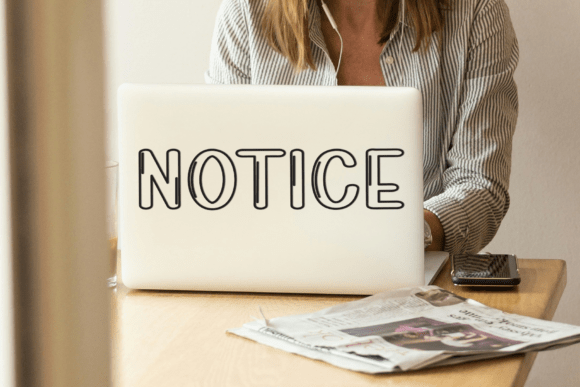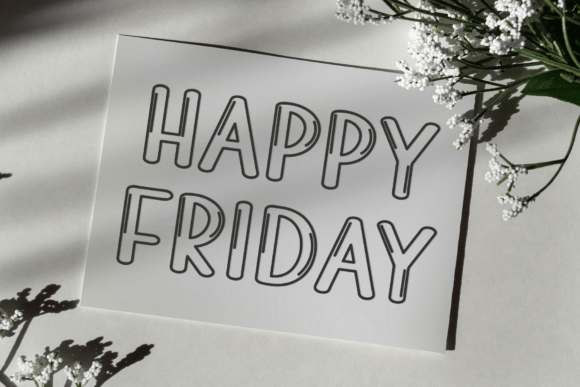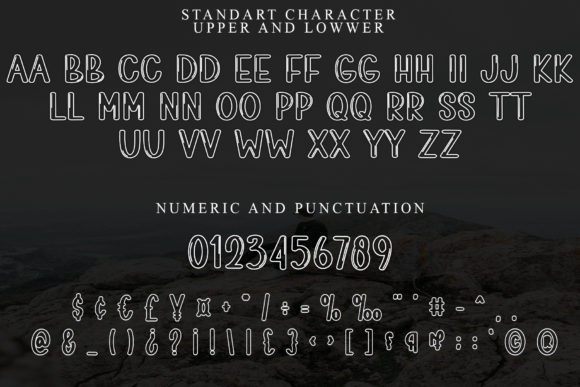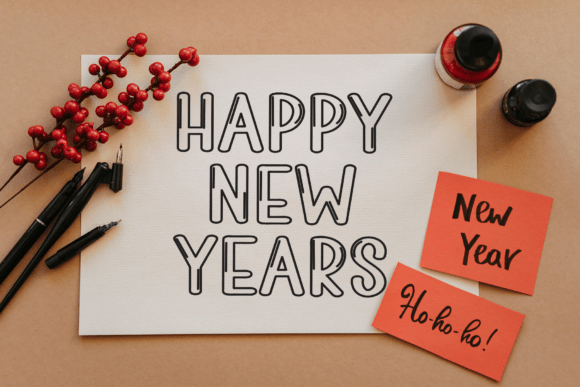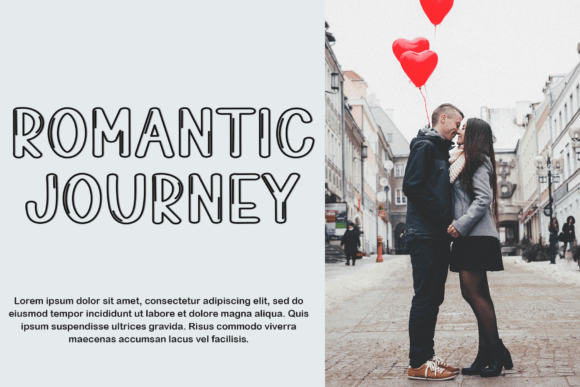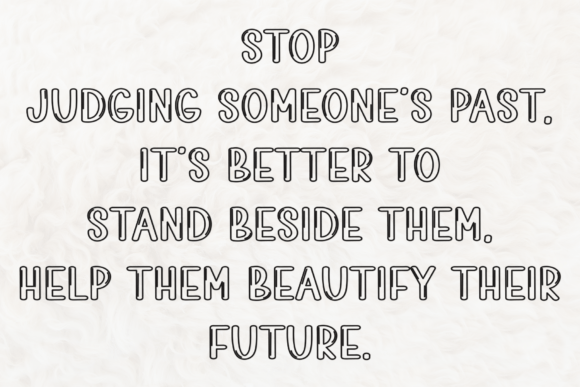
The Charm of Bubble Space Font: A Designer’s New Best Friend
I’ll never forget the time I was working on a project for a kids’ birthday party invitation. I had the design concept nailed, but something was missing – the perfect font. I scrolled through my font library, but nothing seemed quite right. That’s when I stumbled upon Bubble Space Font. Its playful, chunky strokes and friendly letterforms immediately caught my eye, and I knew I had found the one.
What I Love About Bubble Space Font ✨
- ✅ The bold character and warm, personal touch make it perfect for kids’ designs, social posts, greeting cards, or branding that needs personality and charm.
- ✅ The playful, chunky strokes and friendly letterforms give off a casual, inviting vibe that’s hard to resist.
- ✅ It’s eye-catching and full of life, bringing handwritten energy to any creative project.
- ⚠️ Some users might find the font a bit too bold or overpowering for certain designs.
- ⚠️ It may not be the best choice for body text or long paragraphs, as it’s more suited for headlines and titles.
The Story Behind Bubble Space Font
Bubble Space Font was designed with the intention of capturing the carefree, playful spirit of childhood. The designer, inspired by the whimsical world of kids’ illustrations, aimed to create a font that would bring a sense of joy and personality to any design project. With its bold character and warm, personal touch, Bubble Space Font is sure to become a favorite among designers and crafters alike.
Q: What type of designs is Bubble Space Font best suited for?
A: Bubble Space Font is perfect for kids’ designs, social posts, greeting cards, or branding that needs personality and charm.
Q: Can I use Bubble Space Font in my digital designs, such as website headers or social media graphics?
A: Absolutely! Bubble Space Font can add a touch of personality and whimsy to your digital designs, making them stand out and engage your audience.